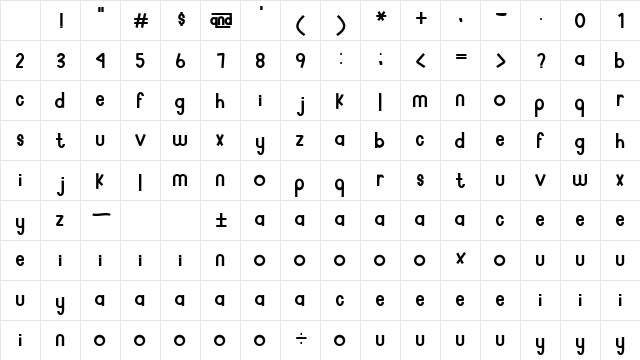
Complete Something Regular glyph index. Displaying only characters natively supported by Something Regular font.
Something is a composed and adaptable typeface that performs quietly and consistently across a wide range of design contexts. Its slender proportions lend an understated elegance to any composition.